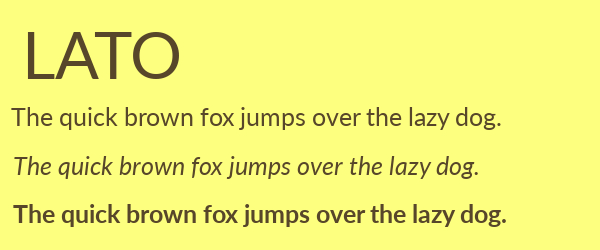
Best Fonts for Websites: 25 Free Fonts for Websites
The best fonts for websites are not the ones you’ll see in a magazine or newspaper. These fonts, which are typically sans-serif, are optimized in the different ways people view websites today.
Long gone are the days when all of us were viewing websites on the same size CRT monitor. Some of your visitors will be reading your posts on smartphones while others may be viewing them on large, 50-inch LCD panels. Fonts need to be optimized for legibility at various screen sizes before they’re optimized for style.
We hope you enjoy this list of 25 best fonts for websites.
1. Open Sans
Open Sans
Open Sans is a sans-serif font designed by Steve Matteson, a prominent American typeface designer, and commissioned by Google. Google has stated this font was designed to be “optimized for legibility across print, web and mobile interfaces.” The font comes in 10 different formats and is licensed under Version 2.0 of the Apache License.
2. Quicksand
Quicksand
Quicksand is a sans-serif font by Andrew Paglinawan, a graphic designer with years of experience in the logo design, print design, and packaging design industries. The font comes in 7 different styles on Font Squirrel and is licensed under Version 1.1 of the SIL Open Font License.
3. Roboto
Roboto
Roboto is a sans-serif font designed by Christian Robertson and commissioned by Google as the primary typeface for the Android operating system. The font comes in up to 18 different styles depending on where you download it from and is licensed under Version 2.0 of the Apache License.
4. Aller
Aller
Aller is a sans-serif font designed by Dalton Maag, Ltd., a London-based typeface design company who has been in business since 1991. The font comes in seven different styles and is licensed under Version 1.00 of the Aller License, the company’s own Free License Agreement.
5. Raleway
Raleway
Raleway is a sans-serif font originally designed by Matt McInerney of The League of Moveable Type and later expanded by Pablo Impallari and Rodrigo Fuenzalida of Impallari Type. The font comes in 18 different styles and is licensed under Version 1.10 of the SIL Open Font License.
6. Lato
Lato
Lato, the Polish word for “summer,” is a sans-serif font designed by Warsaw-based designer Łukasz Dziedzic. The font was published by Dziedzic’s company tyPoland with support from Google. The font comes in over 18 different styles on Font Squirrel and is licensed under Version 1.10 of the SIL Open Font License.
7. PT Sans
PT Sans
PT Sans was designed by Alexandra Korolkova, Olga Umpeleva and Vladimir Yefimov of ParaType. It was developed as part of the Public Types of Russian Federation project, which celebrated the 300-year anniversary of the Civil Font, released by Peter the Great sometime between the years of 1708 and 1710. The font comes in 8 styles on Font Squirrel and is licensed under Version 1.00 of the ParaType PT Sans Free Font License.
8. Oswald
Oswald
Oswald is a sans-serif font designed by Vernon Adams. The font is a revamped version Alternate Gothic style and has been optimized for digital use. The font comes in 15 different styles on Font Squirrel and is licensed under Version 1.10 of the SIL Open Font License.
9. League Gothic
League Gothic
League Gothic is a sans-serif display font designed by The League of Moveable Type. The font is a revival of the design team’s favorite classic font Alternate Gothic No.1, which was released in 1903. The revival not only opens the font up for use in the open-source world, it also makes it compatible for the digital era. The font comes in four styles and is licensed under Version 1.10 of the SIL Open Font License.
10. Caviar Dreams
Caviar Dreams
Caviar Dreams is a sans-serif font designed by Nymphont, a freelance web and graphic designer by the name of Lauren Thompson. The font comes in four styles and is licensed under Version 1.00 of the Nymphont License.